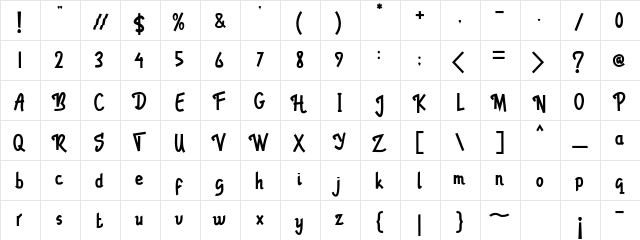
Raspberry Cake Regular
Design Context for Raspberry Cake Typeface
Raspberry Cake takes a measured approach to typography — its balanced proportions and neutral character make it a reliable workhorse for both digital and print work.
Pro Tip: Use Raspberry Cake in both headline and body roles to test its range before committing to a single application.